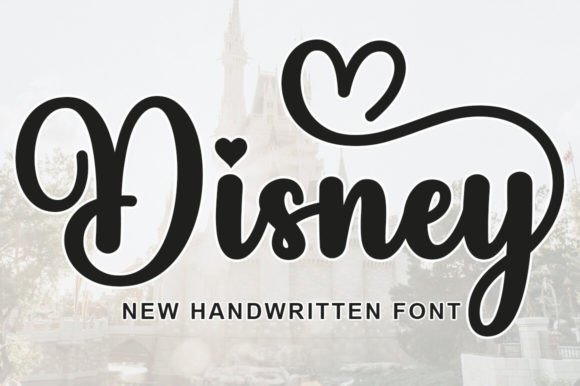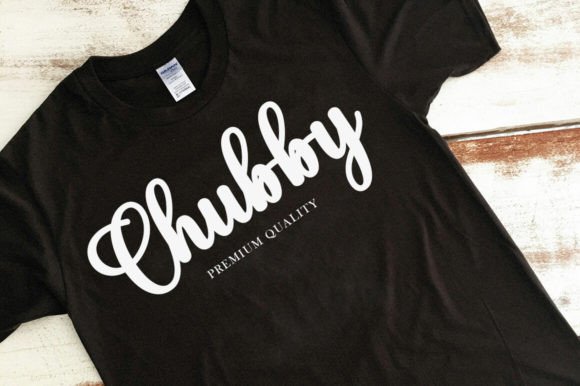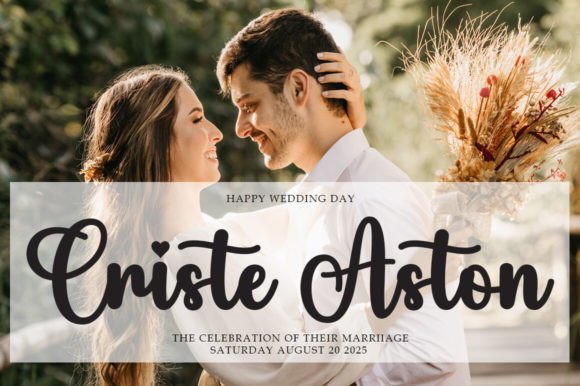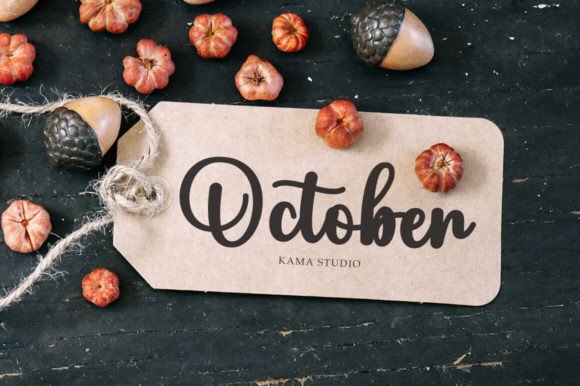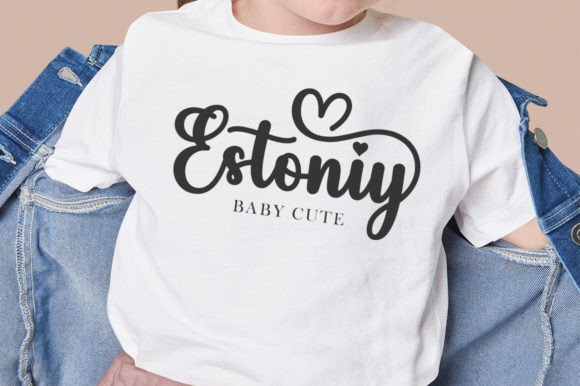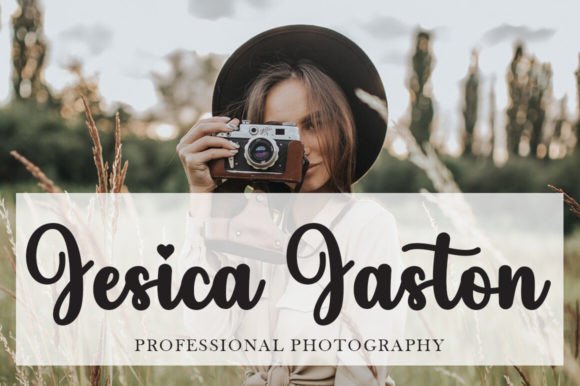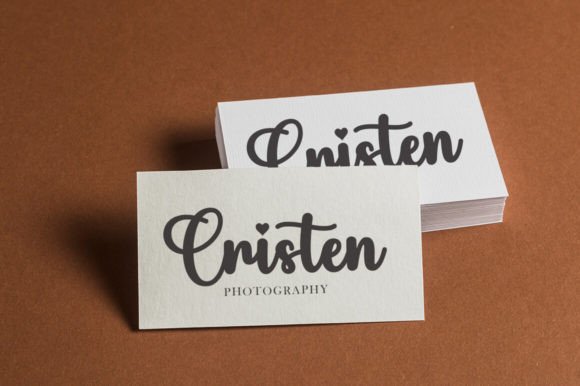
Unleashing Whimsy with the Disney Font
Do you remember that moment when you stumbled upon the perfect font for your project, and suddenly, your design came to life with an extra layer of personality? For many designers, finding the right font can be a game-changer. It’s a moment that sparks creativity and sets the tone for a project’s overall aesthetic.
One such font that has captured the hearts of designers and creatives alike is the Disney Font. This charming handwritten font is designed to infuse a sense of playfulness and innocence into your designs, making it perfect for projects that require a lighthearted and endearing touch.
Whether you’re working on a children’s book, a wedding invitation, or a social media campaign, the Disney Font offers a valuable asset to your design toolkit. Its unique letterforms and whimsical flair make it an ideal choice for designers looking to add a touch of magic to their creations.
Disney Font Key Features
- Font Family: The Disney Font is a custom font designed by Disney, with a range of weights and styles available.
- Unique Characteristics: The Disney Font features a distinctive, cursive design with a touch of whimsy and playfulness, making it instantly recognizable as a Disney brand asset.
Designer Review: Disney Font
When I first saw the Disney Font, I couldn’t help but feel a sense of nostalgia and wonder. The font is a beautiful representation of the whimsy and magic that Disney is known for. Here’s what I love about it:
- ✨ The font’s playful, handwritten feel is reminiscent of classic Disney animation.
- ✨ The use of swashes and flourishes adds a touch of elegance and sophistication.
- ✨ The font is highly customizable, making it perfect for designers who want to create unique and personalized designs.
- ⚠️ The font may not be suitable for all types of projects, as its playful feel may not be suitable for more formal or professional designs.
- ⚠️ The font’s complexity may make it difficult to read at small font sizes or in certain contexts.
Overall, I think the Disney Font is a great addition to any designer’s toolkit. While it may not be perfect for every project, its unique charm and customization options make it a great choice for designers who want to add a touch of magic to their designs.
Some common use cases for the Disney Font include:
– Creating magical and whimsical designs for children’s products.
– Adding a touch of nostalgia to retro-themed projects.
– Using the font to create a sense of wonder and enchantment in branding and marketing materials.
– Experimenting with the font’s bold and playful style to create eye-catching headlines and titles.